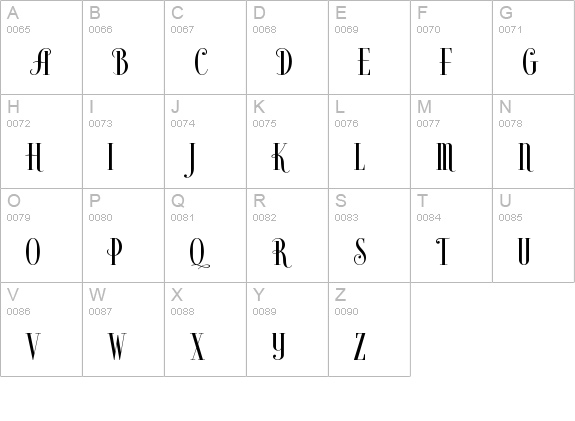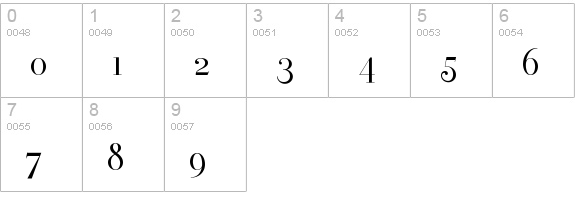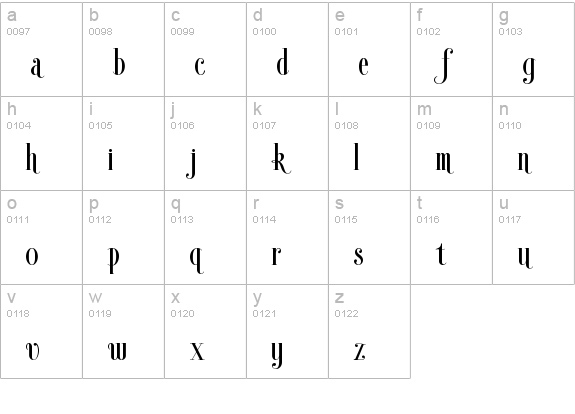
High Society NF is a stylish and elegant font that exudes sophistication and class. Its graceful lines and refined curves make it perfect for projects that require a touch of luxury and glamour. Whether you're designing invitations, branding materials, or editorial content, High Society NF will elevate your work to new heights. The best part? High Society NF is available for free download at FontsMarket.com. That's right, you can add this beautiful font to your collection without breaking the bank. Don't miss out on the opportunity to enhance your designs with this exquisite typeface. Download High Society NF today and bring a touch of high society to your projects.